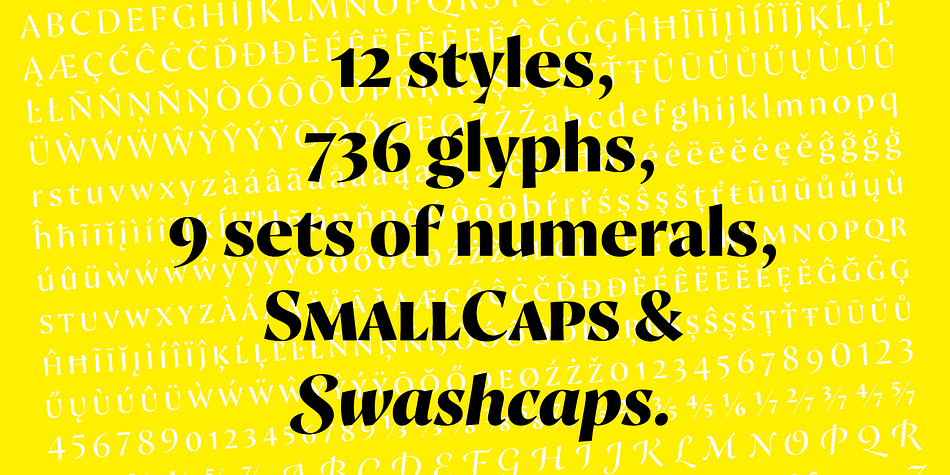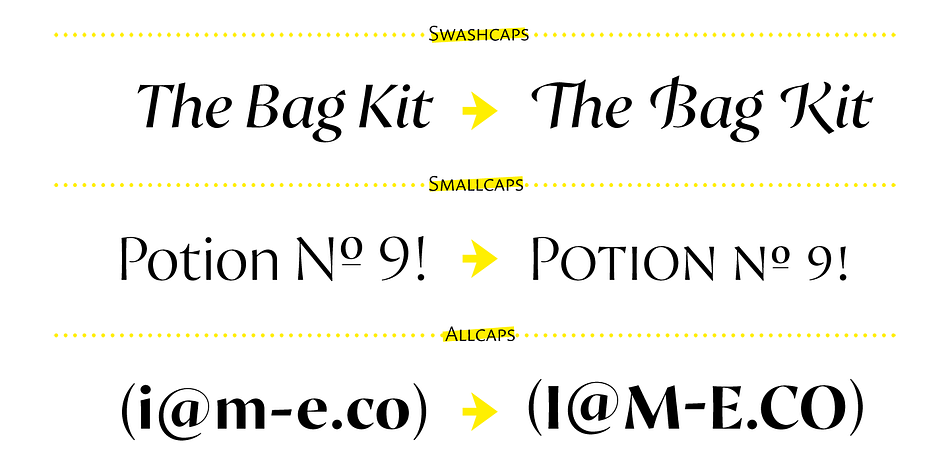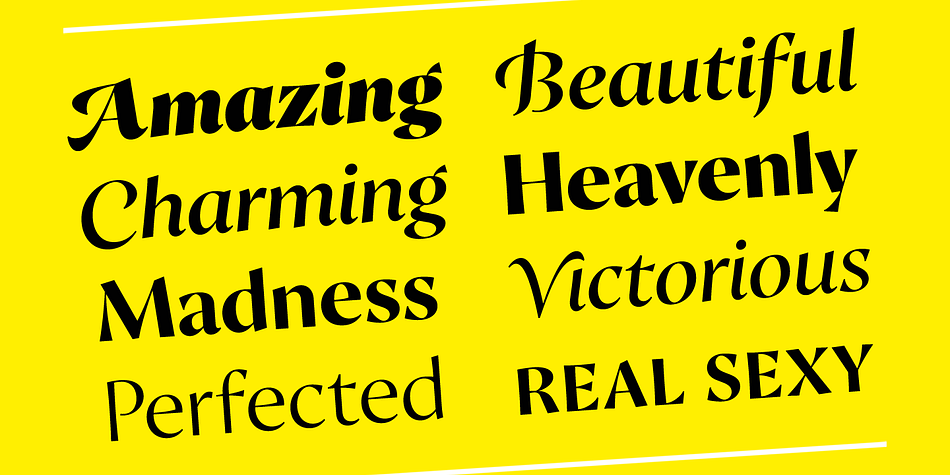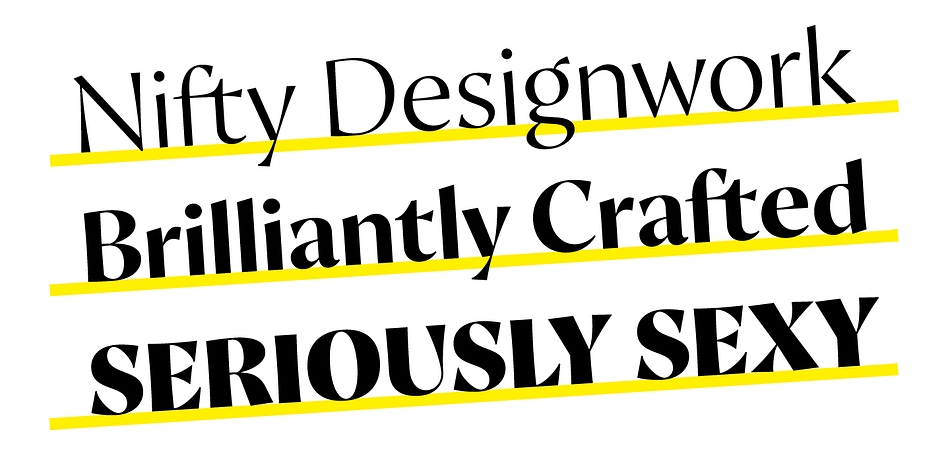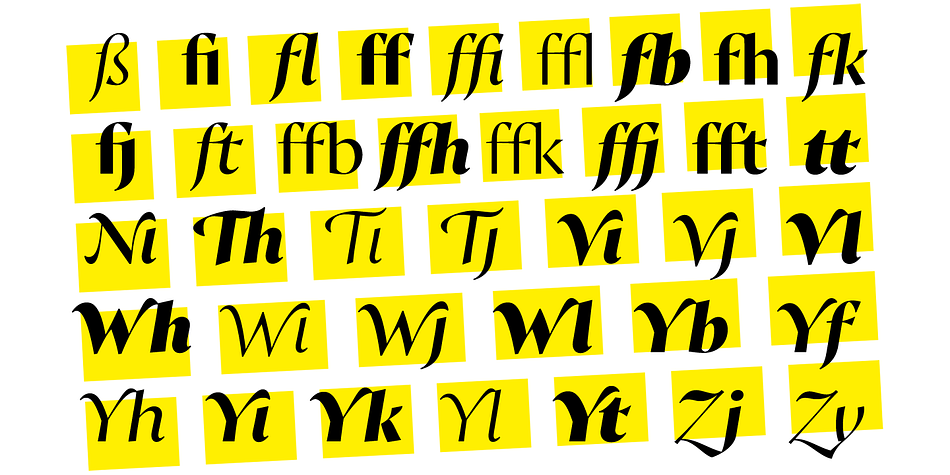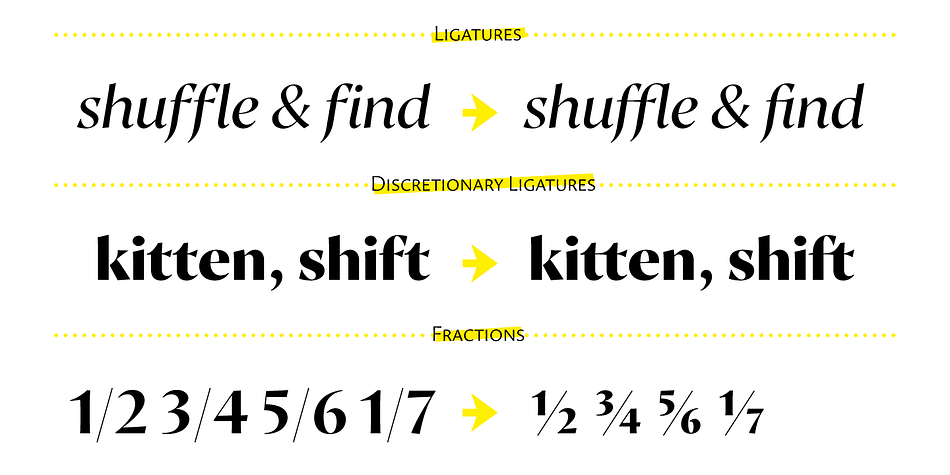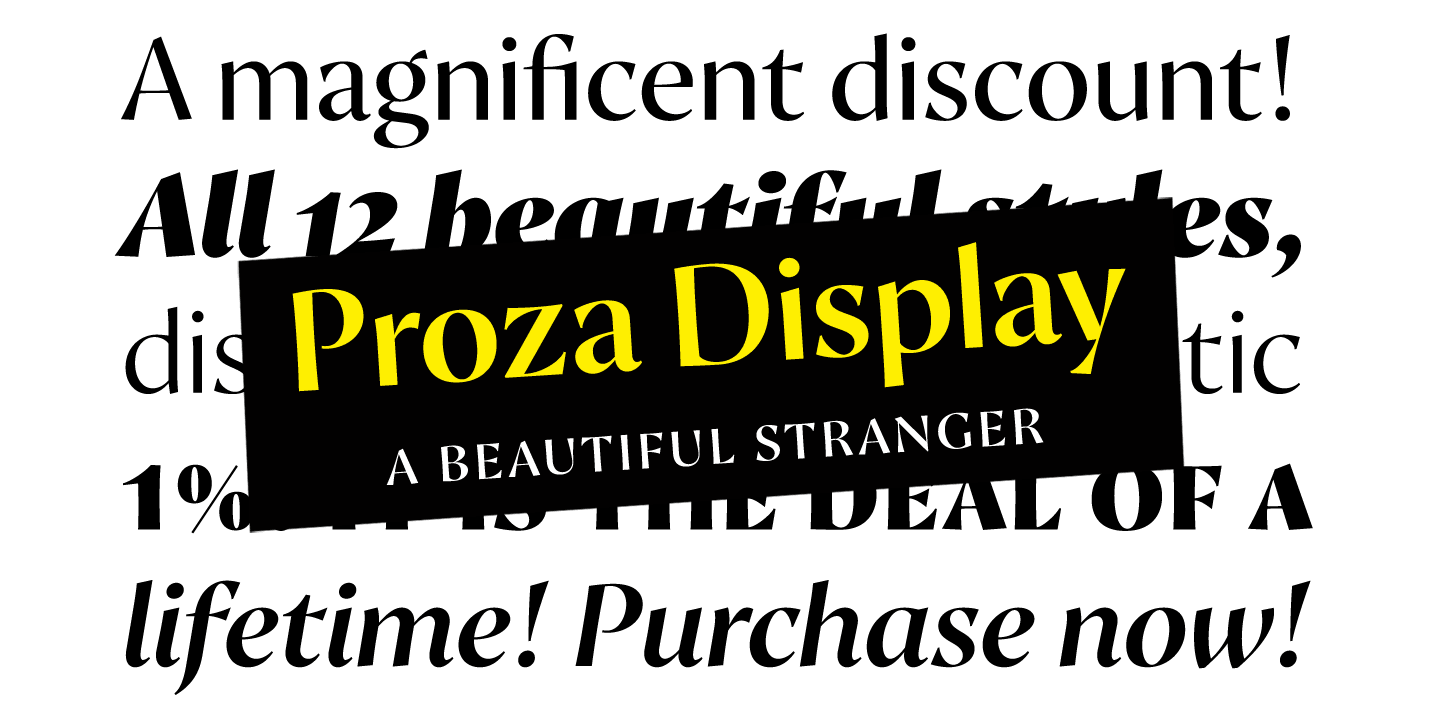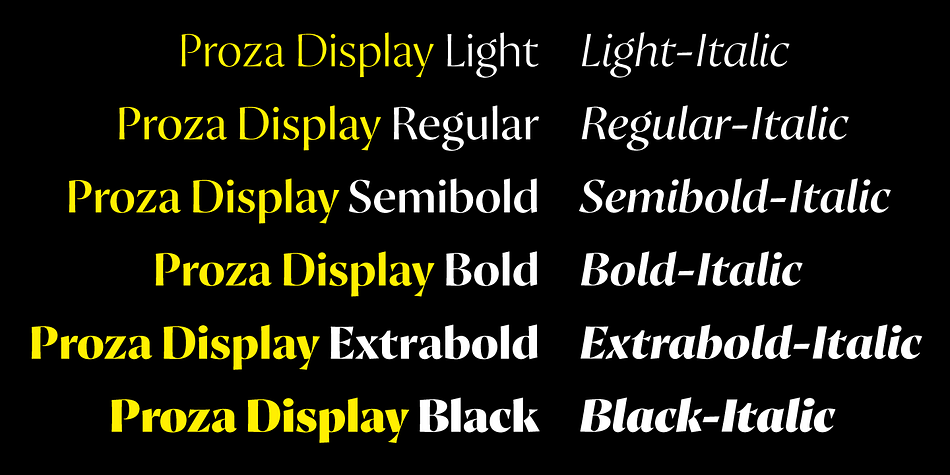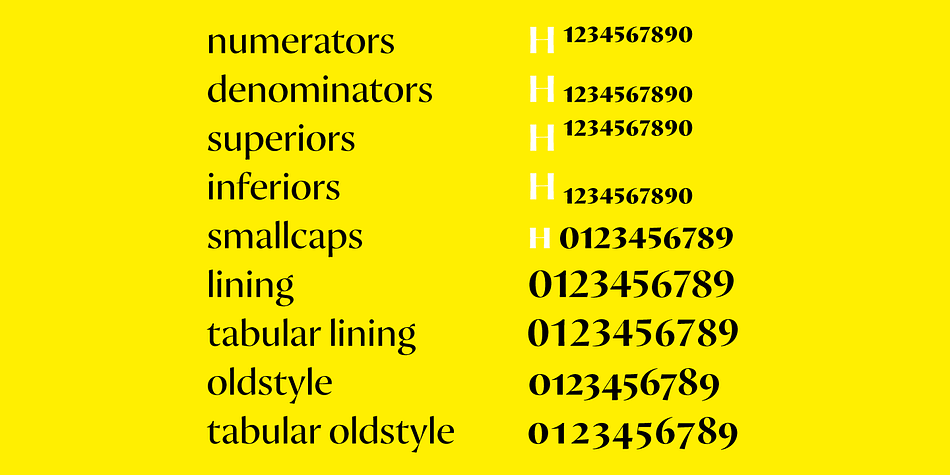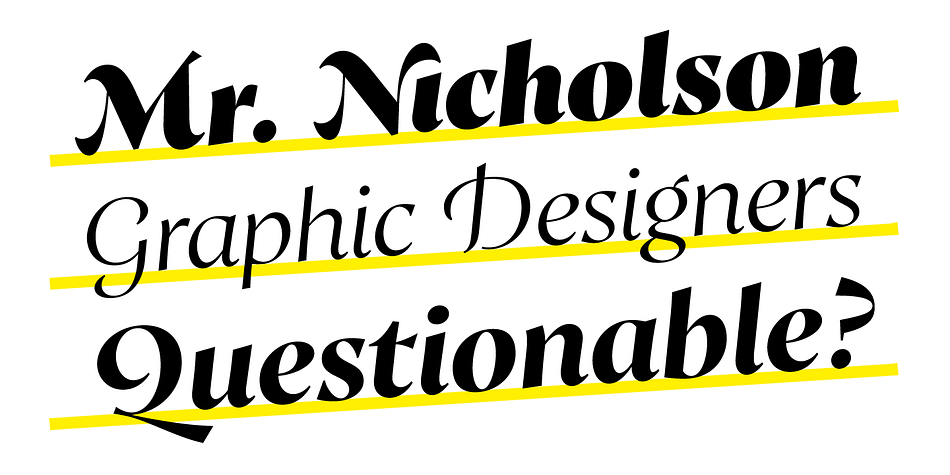
Proza Display is a serif and display sans font family. This typeface has twelve styles and was published by Bureau Roffa.
Proza Display is the eye-catching counterpart of Proza, consisting of 12 styles (6 weights + italics). Together, Proza and Proza Display form a large family of 24 styles, which are all equipped with plenty of language support and open type features.
Proza Display was made to function especially well at large sizes, drawing the reader’s attention with its beautiful and slightly eccentric shapes. Its large character set (support for 200+ languages) and open type features make sure that Proza Display doesn’t let you down, while its classy design helps you to make a visual impact.